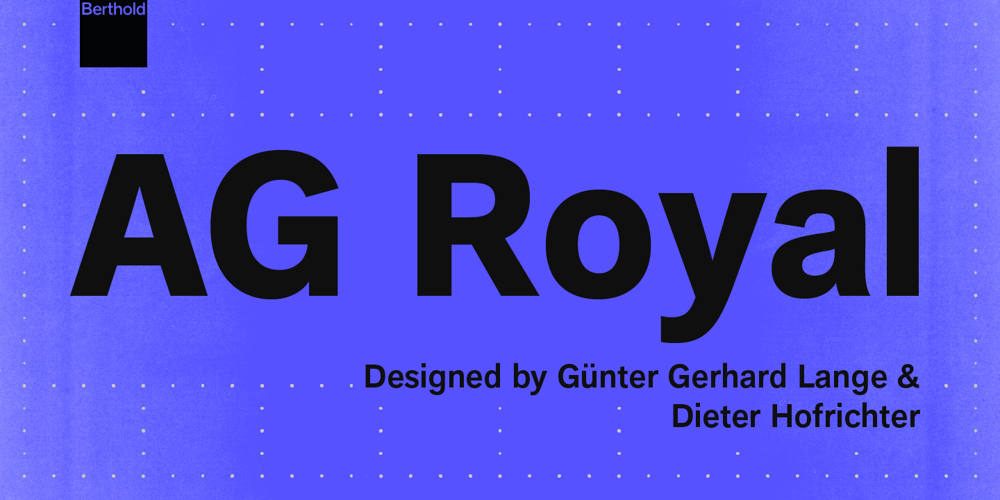
AG Royal Font Family was designed by Günter Gerhard Lange and published by Berthold. AG Royal contains 10 styles and family package options. AG Royal is an expressly text orientated version of Akzidenz-Grotesk. The higher ascenders cause a better readability with long amounts of text and the smaller capitals produce a more even face. Lange decided for the ‘italic’ a form which would better contrast with the roman.